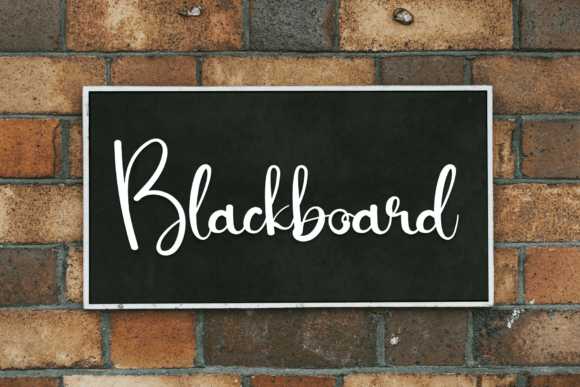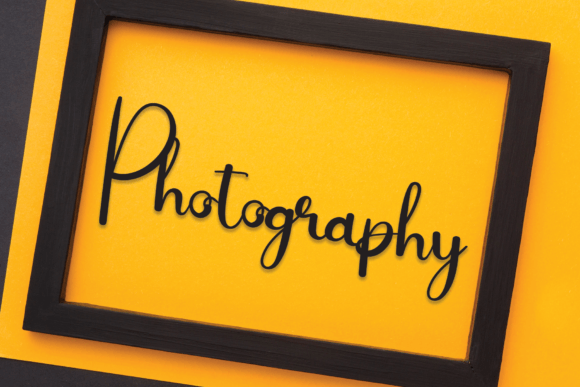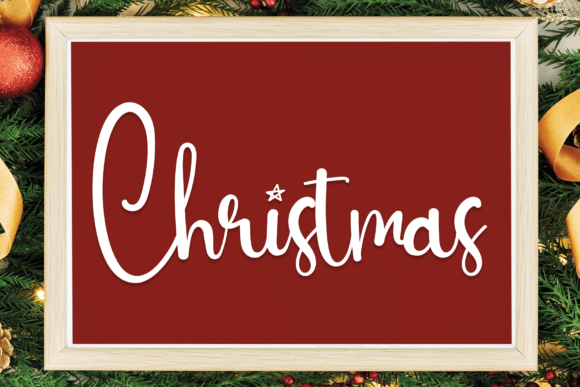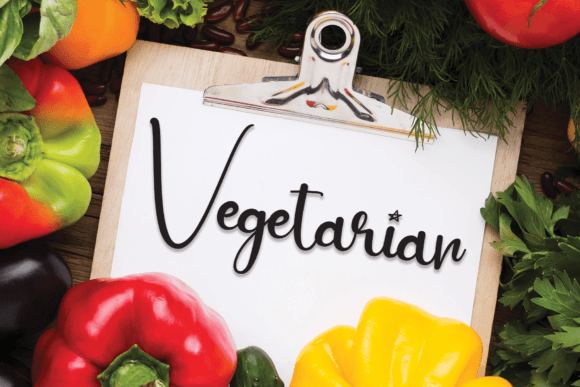
Magnolia Font
About Magnolia Font
Magnolia is a charming and approachable handwritten font crafted to bring warmth and personality to your creative projects. Its smooth lines and balanced strokes make it incredibly versatile and easy to read, ideal for both casual and polished design work.
Whether you’re making a greeting card, designing a presentation, or adding a handmade feel to digital content, the Magnolia font download offers a stylish yet friendly touch that fits almost any occasion.
Ideal Uses for Magnolia Font
This font is designed to shine across a wide range of creative applications. It’s an excellent choice for:
• Craft Projects – Great for DIY printables, stickers, and handmade signage
• Greeting Cards – Adds a heartfelt handwritten look to invitations, thank-yous, or holiday cards
• Digital Design – Use in Instagram posts, blog headers, and YouTube thumbnails
• Stationery – Lovely on planners, notebooks, and writing pads
• Marketing Materials – Works well for small business branding, tags, and packaging
• Educational Tools – Perfect for worksheets, charts, and classroom visuals
Whether you’re a designer, teacher, entrepreneur, or creative hobbyist, Magnolia font download helps communicate your message with a warm, human touch.
• Style: Handwritten script with a friendly tone
Why Choose Magnolia?
The Magnolia font isn’t just beautiful—it’s also reliable and adaptable. It brings a handwritten authenticity that works in both digital and print projects. If you’re searching for a clean, legible font that still feels handcrafted and welcoming, Magnolia font download is the perfect addition to your toolkit.